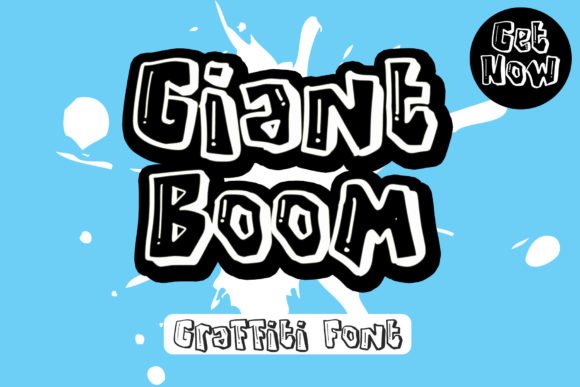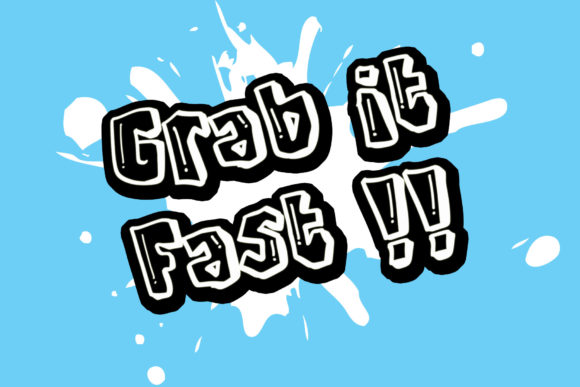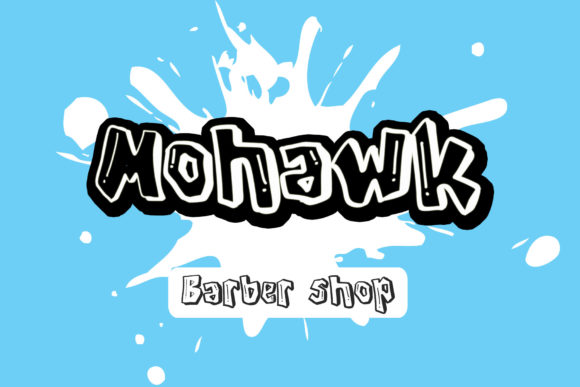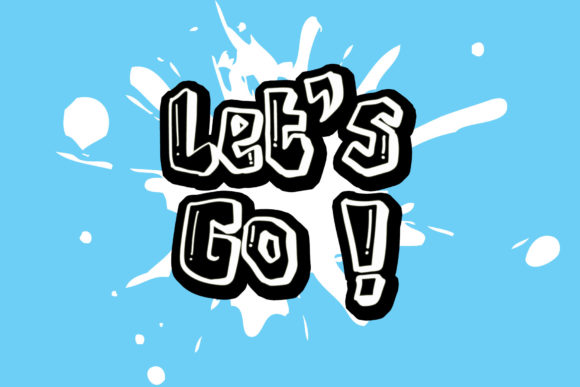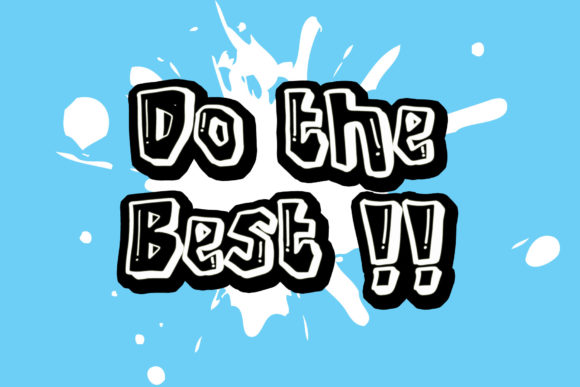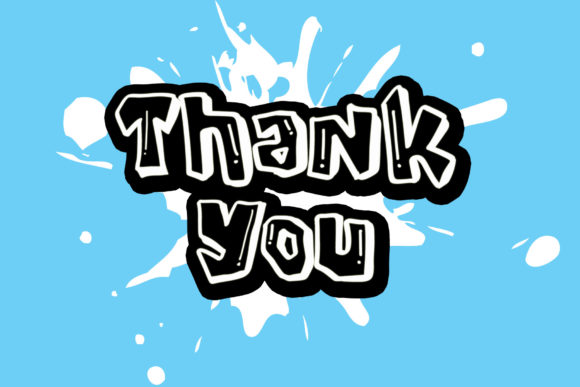
Adding a Dash of Urban Flair to Your Designs
Remember that moment when you’re brainstorming a new project and you just can’t seem to find the right font to capture the essence of your idea? It’s like the missing piece of a puzzle that’s holding you back from creating something truly amazing. For designers looking to infuse their work with a cool, edgy vibe, I’ve got just the thing.
Meet the Giant Boom Font, a graffiti-styled display font that’s perfect for urban designs and anything else that requires a rough, textured feel. This font is a game-changer for designers who want to add a bit of attitude to their work. With its bold lines and outlined design, the Giant Boom Font is a versatile tool that can be used in a variety of creative projects.
Giant Boom Font Key Features
- Unique Characteristics: Giant Boom Font features an oversized, distressed design with a bold, energetic feel, perfect for creating eye-catching headlines and titles.
- Customization Options: The font includes various styles, including regular, bold, and italic, allowing users to customize their designs according to their needs.
- Legibility: Despite its oversized design, the font remains highly legible, making it suitable for both digital and print media.
Giant Boom Font Review
First off, I think the creator of Giant Boom Font deserves credit for the sheer creativity and uniqueness of this font. ✨ The distressed, explosive design is sure to grab attention and stand out from the crowd. It’s perfect for those looking to add a bold, energetic vibe to their project.
Another thing I appreciate is the versatility of Giant Boom Font. It’s suitable for a wide range of applications, from music festivals to sports events, and even extreme sports or action-packed movies. ✨ The font is available in various formats, making it easy to integrate into different design software.
- ⚠️ Legibility can be an issue, especially at smaller font sizes. The bold, explosive design can make it difficult to read, especially for those with visual impairments.
- ⚠️ The font may not be suitable for formal or professional applications, as it can come across as too playful or attention-seeking.
- ⚠️ Some users may find the font too loud or overwhelming, which can detract from the overall message or design.
Overall, I think Giant Boom Font is a great addition to any designer’s toolkit. While it may have some limitations, its unique design and versatility make it a great choice for the right project. Just be sure to use it thoughtfully and consider the needs of your audience.
Giant Boom Font is ideal for creating attention-grabbing headlines, titles, and posters. Use it to add a bold and playful touch to your designs.
Some common use cases include:
- Creating eye-catching social media graphics.
- Designing bold and playful posters.
- Adding a fun touch to presentations and reports.